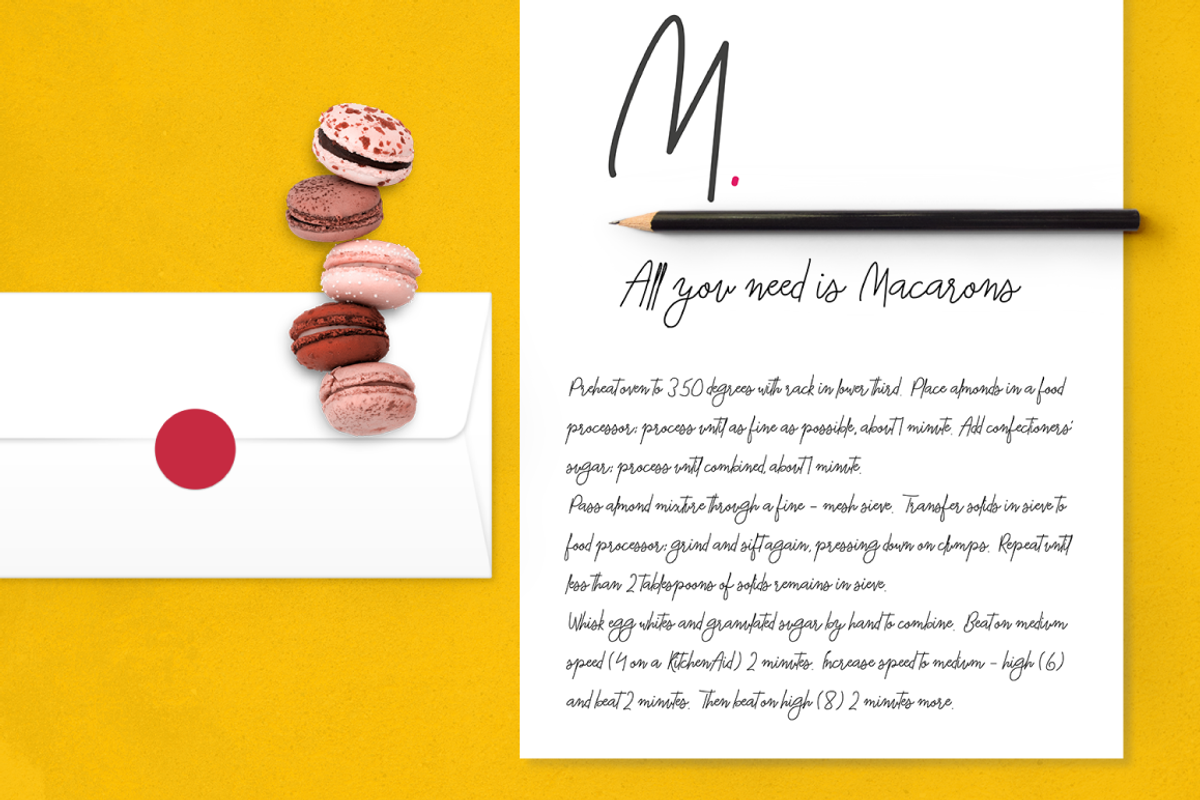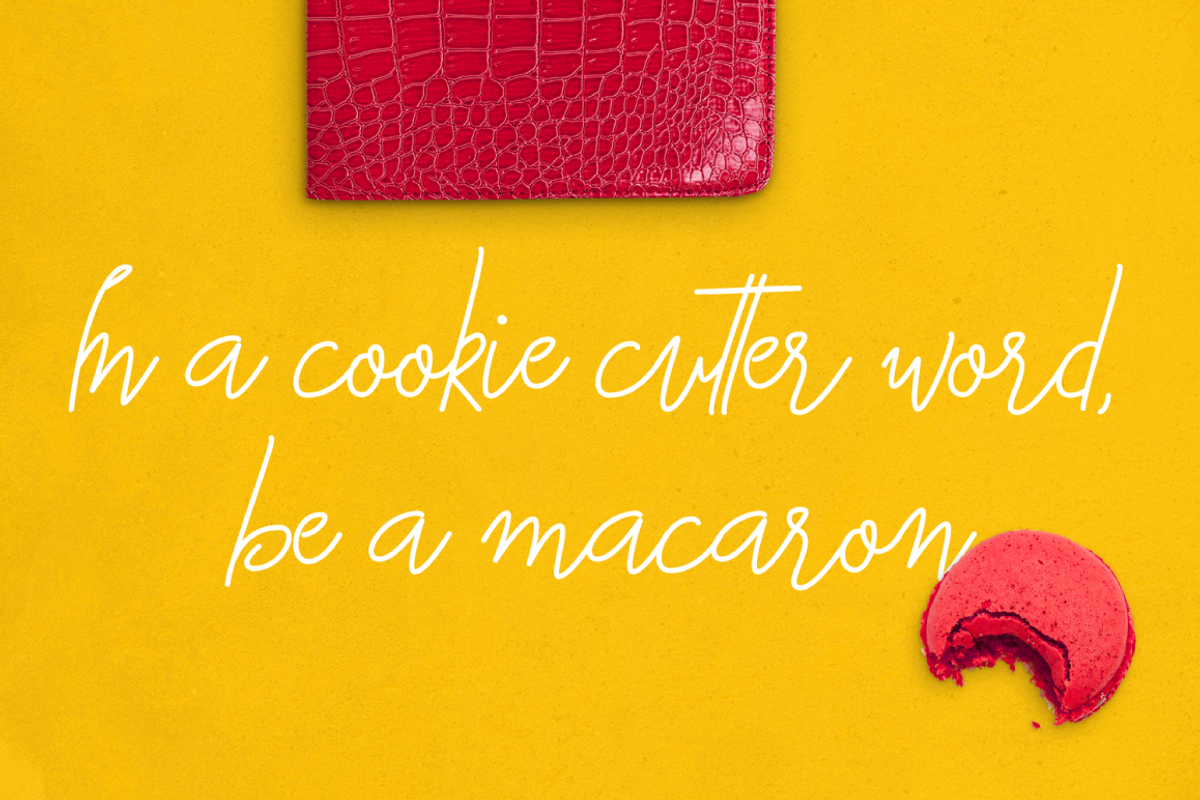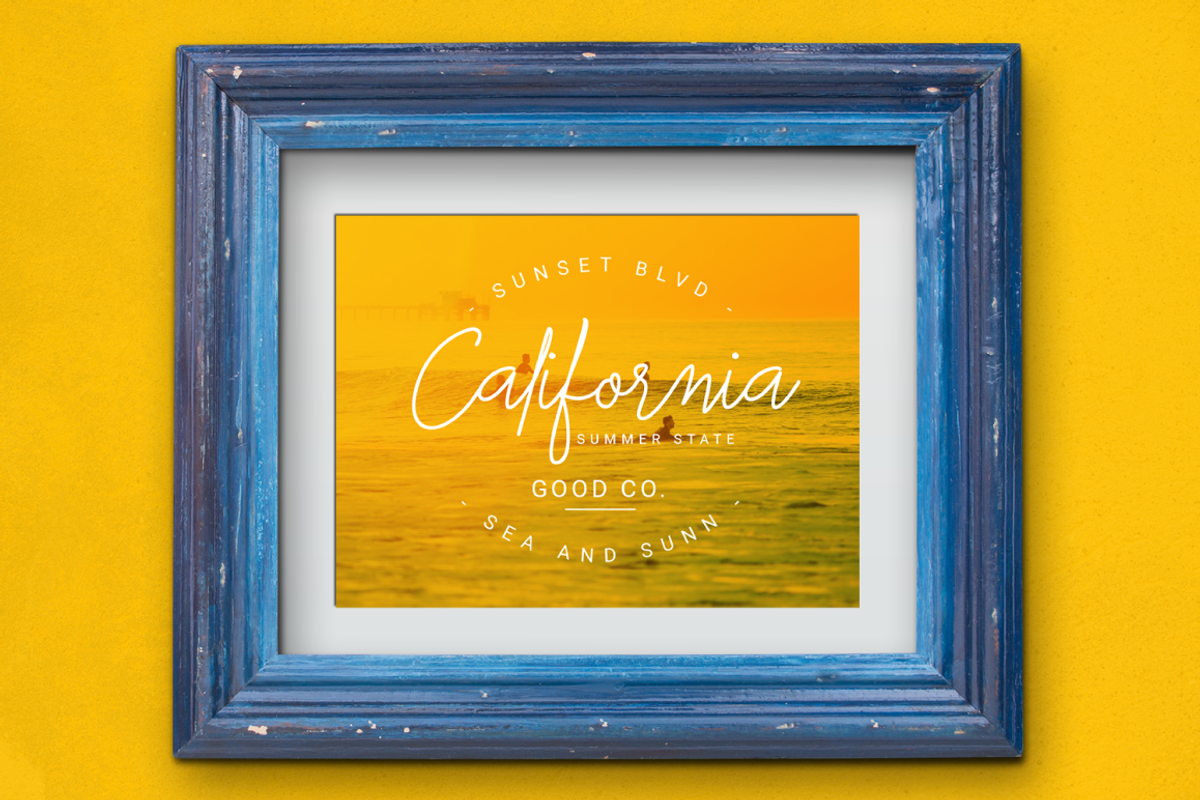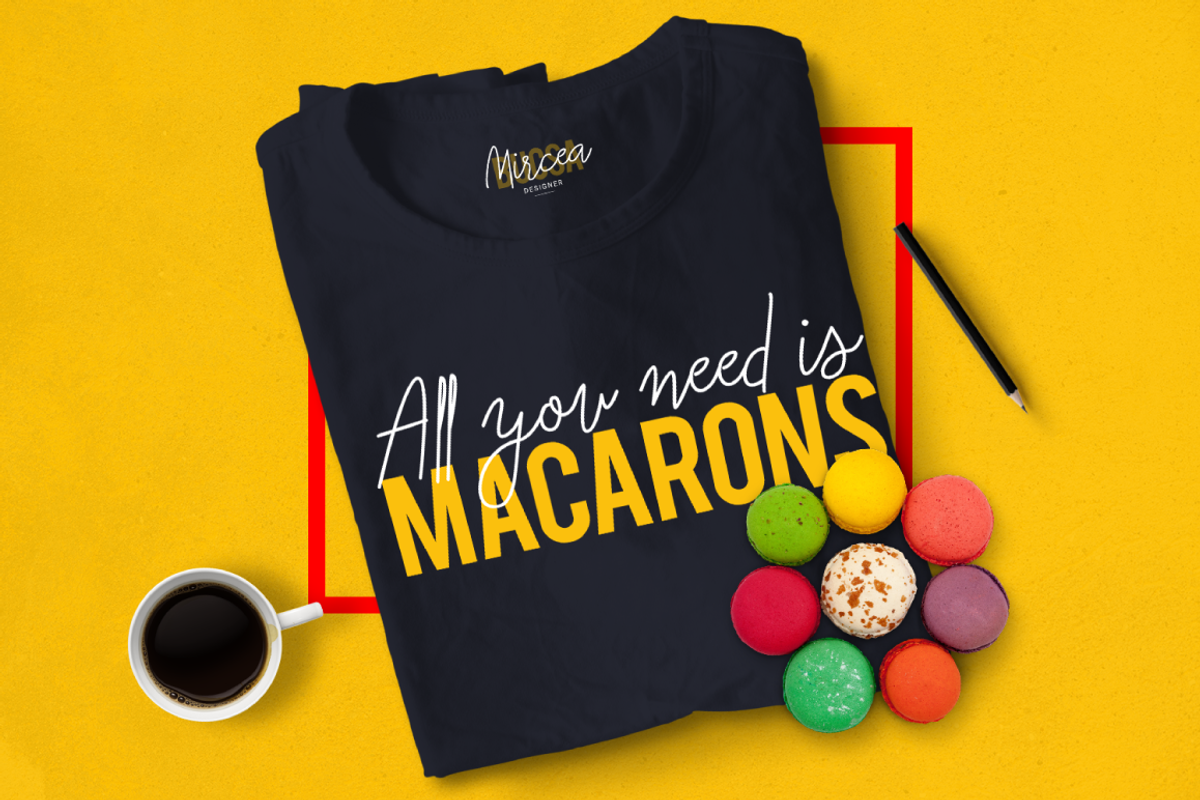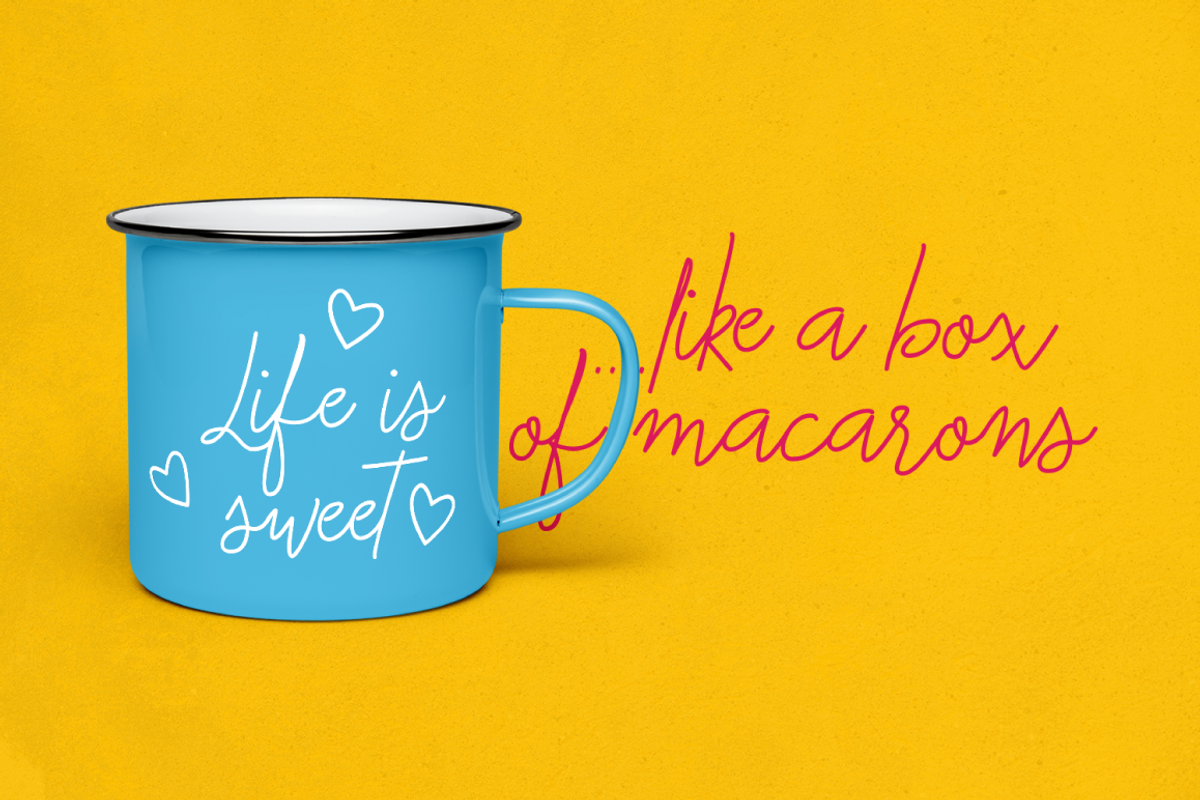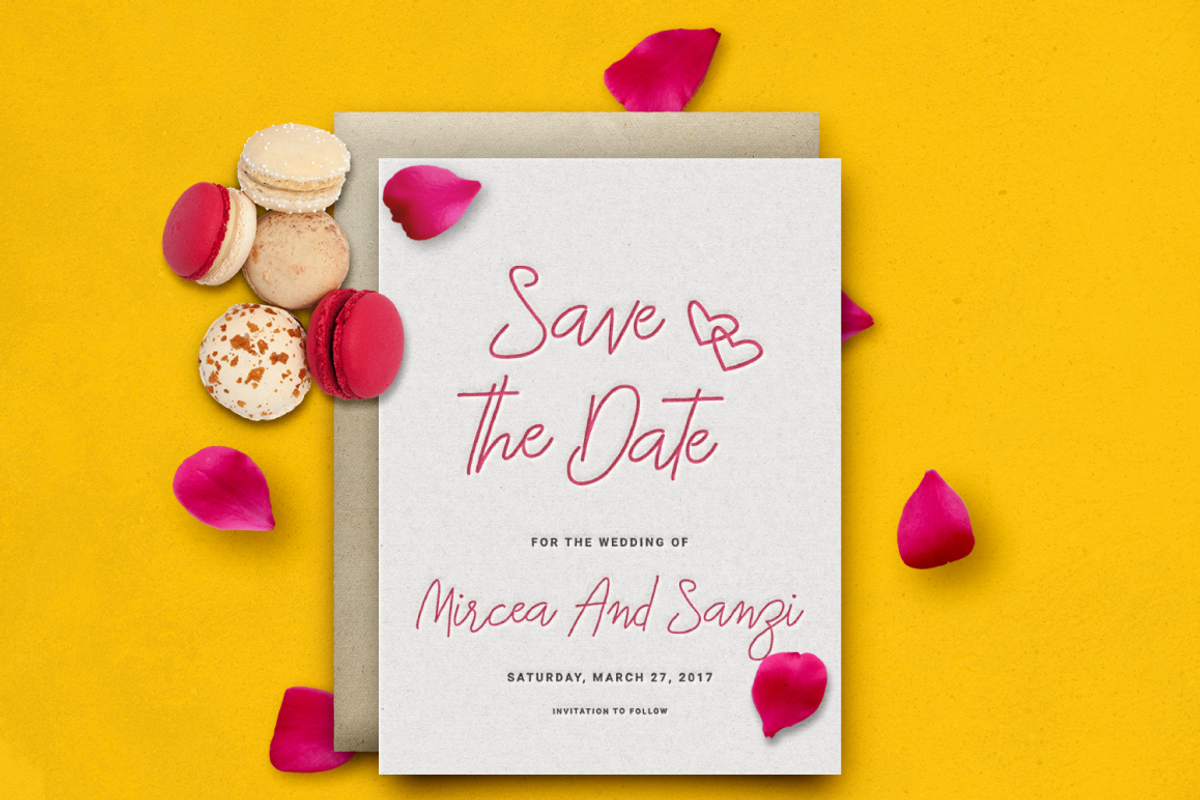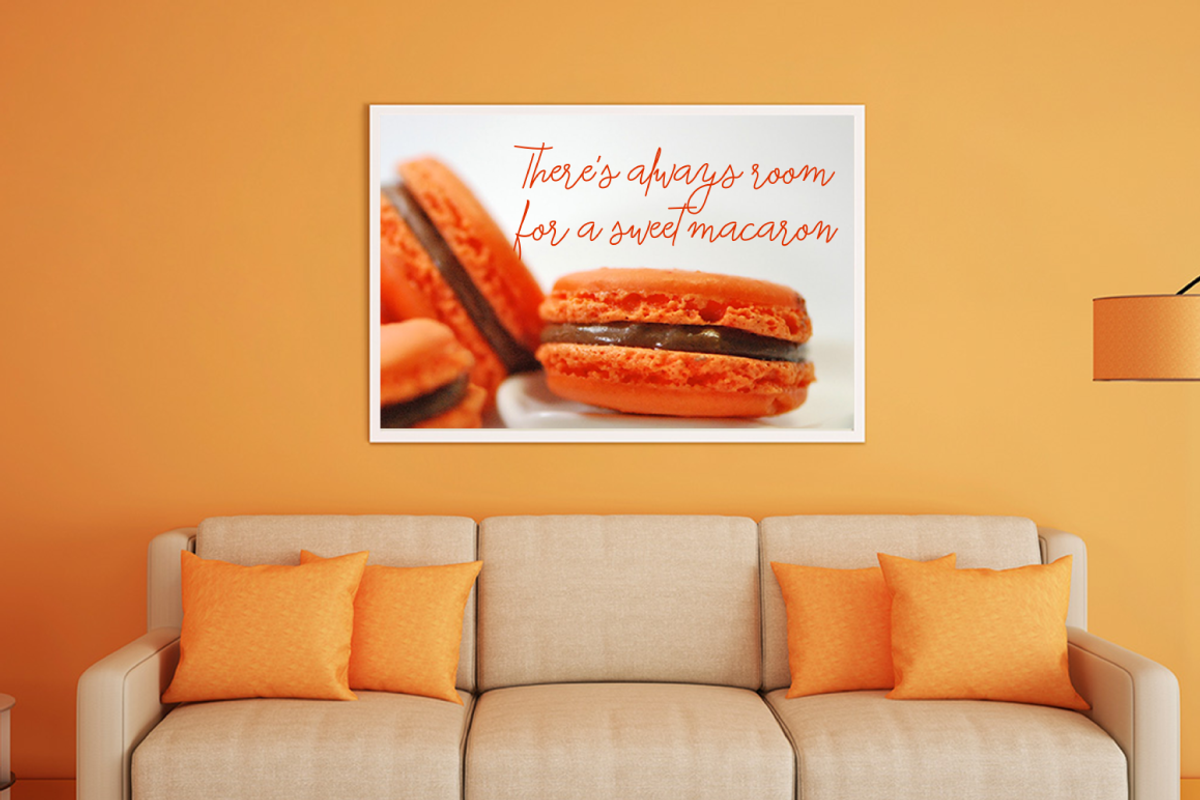
Macarons Font and Extras
Macarons Font and Extras by LovePowerDesigns is a font selected for branding, posters, packaging, typography.
Why Macarons Font and Extras is worth a look
Macarons Font and Extras by LovePowerDesigns fits naturally into Branding, posters, packaging, typography.